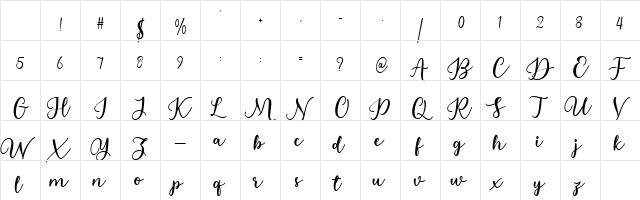
Complete Estafet Letter Script Med Regular glyph index. Displaying only characters natively supported by Estafet Letter Script Med Regular font.
Estafet Letter Script Med flows with the natural rhythm of handwritten lettering, making it ideal for designs that call for warmth and personal expression.
Font Pairing: Combine Estafet Letter Script Med with a simple geometric sans for maximum contrast - the tension between flowing curves and clean structure is a classic typographic pairing.
Pro Tip: Use Estafet Letter Script Med for short runs of text - names, titles, or taglines. Extended body copy in script faces tires the eye quickly.